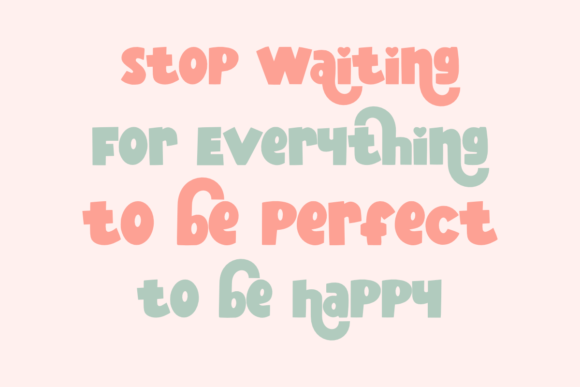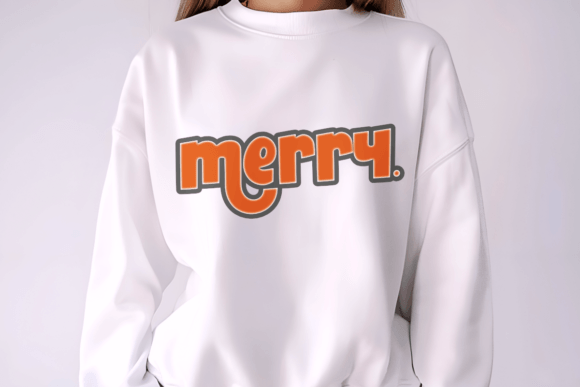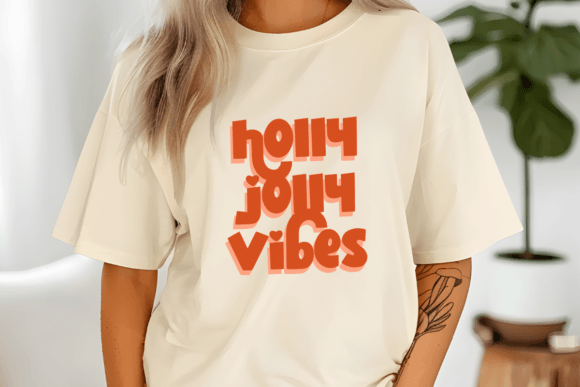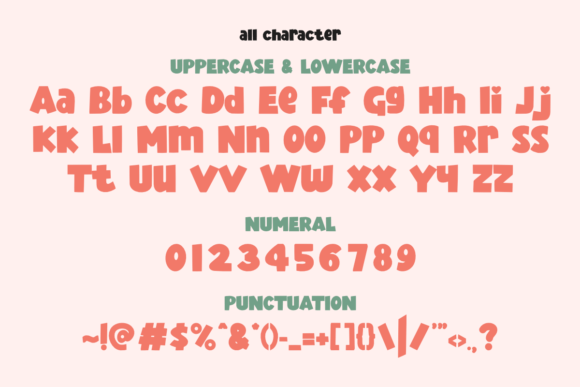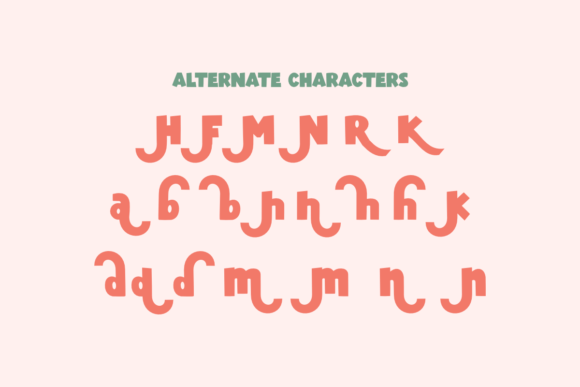
Introduction to Kinder Grinch Font
Do you remember the moment when you stumbled upon a font that perfectly captured the essence of your creative project? For designers, it’s a magical feeling that can elevate any design from good to great. I still recall the excitement I felt when I discovered the Kinder Grinch Font – a quirky, cute display font that instantly brought a smile to my face.
As a designer, you understand the value of having the right font at your disposal. The Kinder Grinch Font is more than just a design resource; it’s a treasure trove of creative possibilities. With its perfect blend of playfulness and charm, it’s ideal for a wide range of applications, from retro designs and Valentine’s Day cards to logos and quotes.
Key Features of Kinder Grinch Font
- High-quality design resource ideal for creative projects, including posters, flyers, and more
- Unique, playful, and whimsical design style that’s perfect for adding a touch of humor to your work
- Designed to be highly legible and readable, making it perfect for body text and titles
- Unique Grinch-inspired design elements add a fun and creative touch to any project
Honest Review: Kinder Grinch Font
I recently stumbled upon the Kinder Grinch Font, and I must say it’s been a game-changer for my creative projects. This design resource has a unique charm that can instantly elevate any layout.
However, there are some limitations to consider. The font’s design, while adorable, can be overwhelming if used in excess. It’s essential to strike a balance to avoid visual clutter. Additionally, the font family is relatively small, so it might not be suitable for large-scale designs.
- Limitations: ⚠️ Can be overwhelming if used excessively. ⚠️ Limited font family size.
Overall, I’m impressed with the Kinder Grinch Font. It’s a high-quality design resource that can add a unique touch to your creative project. While it has some limitations, I think it’s worth using, especially for personal projects or small-scale designs.
The Kinder Grinch Font is a unique and playful design resource perfect for creative projects. With a transparent background, it’s ideal for adding a touch of whimsy to your designs. The high-quality font is available for free download, making it a valuable asset for designers and non-designers alike.
Tips for Getting the Most Out of Kinder Grinch Font
To get the most out of Kinder Grinch Font, experiment with different font sizes, colors, and combinations to create unique and eye-catching designs. You can also use the font in conjunction with other design elements, such as graphics and images, to add depth and interest to your design.
Common Use Cases for Kinder Grinch Font
The Kinder Grinch Font is perfect for a variety of creative projects, including invitations, posters, and social media graphics. Its playful and whimsical design makes it ideal for use in children’s party invitations, holiday cards, and other fun and festive designs.